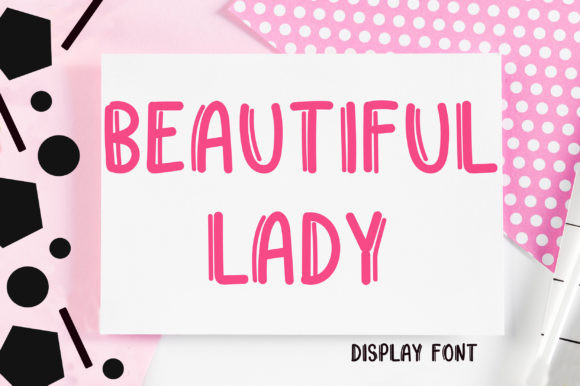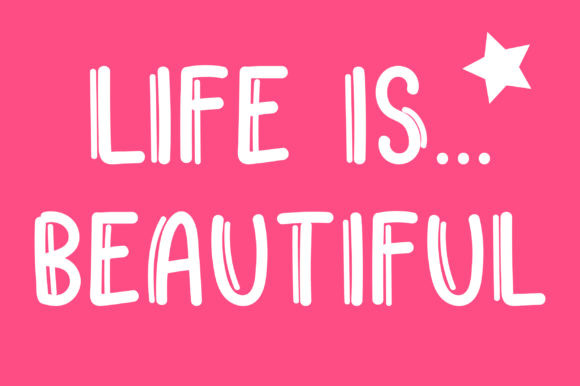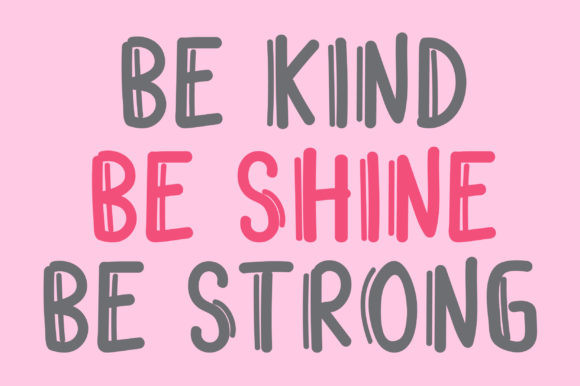
Beautiful Lady Font
Beautiful Lady is a cute and colorful display font. Its simple style makes this font incredibly versatile, fitting a wide range of contexts. Add it to your creative ideas and notice how it makes them stand out!